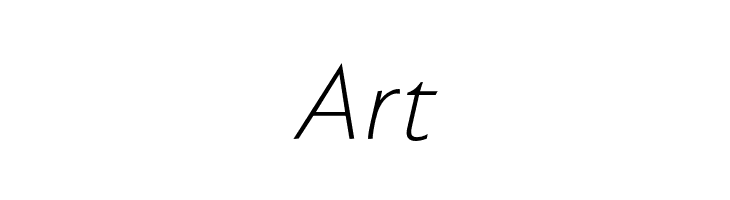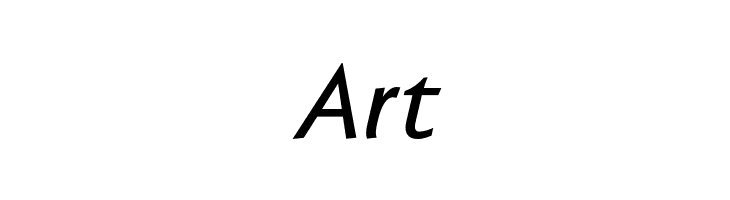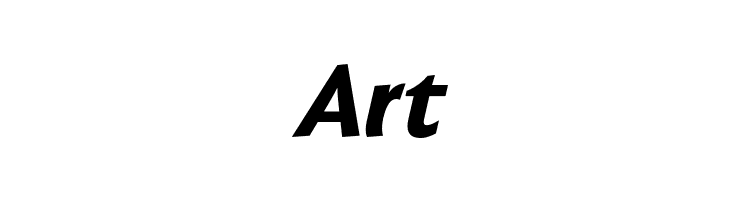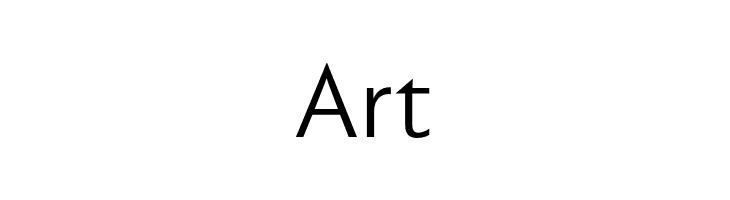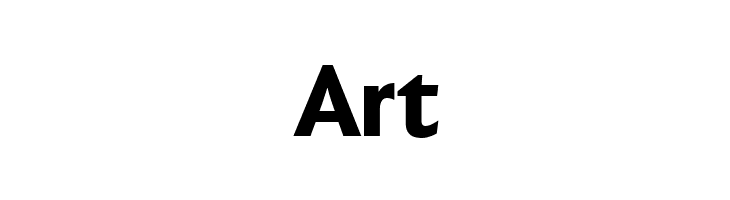
• FaberSansPro-Normal
A clean, modern sans-serif font with consistent stroke width and balanced spacing.
• FaberSansPro-NormalKursiv
A modern, italic sans-serif font with a sleek and elegant design.
• FaberSansPro-Schwer
A bold, modern sans-serif font with strong, uniform strokes and excellent readability.
• FaberSansPro-SchwerKursiv
A bold, italic sans-serif font with a modern and dynamic style.
• FaberSansStd-45Leicht
A clean, modern sans-serif typeface with uniform stroke width and balanced spacing.
• FaberSansStd-46LeichtKursiv
A sleek, italicized font with a modern and elegant design.
• FaberSansStd-55Normal
A clean, modern sans-serif font with uniform stroke width and excellent legibility.
• FaberSansStd-56NormalKursiv
A modern, italic sans-serif font with clean lines and balanced proportions.
• FaberSansStd-65Kraeftig
A modern sans-serif font with geometric shapes and balanced proportions.
• FaberSansStd-66KraeftigKursiv
A modern, italic sans-serif font with clean lines and a dynamic slant.